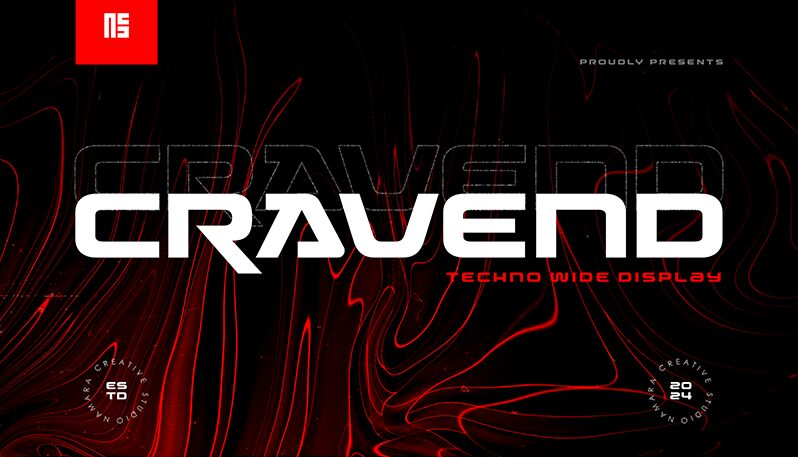
Cravend
Cravend font by Namara Creative is a free bold futuristic display font. It stands out with wide, turbo-sleek letterforms that feel engineered—rounded corners, clipped terminals, and smooth, continuous strokes give it a high-speed, neon-lit vibe. The generous horizontals deliver strong impact without visual noise, so headlines read like a clean pulse rather than a shout.
Using Cravend, you’ll get instant presence for esports branding, game titles, tech event posters, UI hero banners, sci‑fi book covers, and streaming overlays. This free font’s steady rhythm and airy spacing hold up at big sizes and tight grids alike. Pair it with a simple geometric sans for body copy, and let Cravend handle the spotlight.